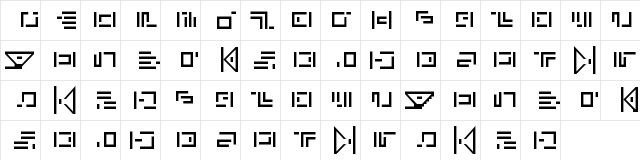
tlphabet Regular
Design Context for t�lphabet Typeface
t�lphabet is a composed and adaptable typeface that performs quietly and consistently across a wide range of design contexts.